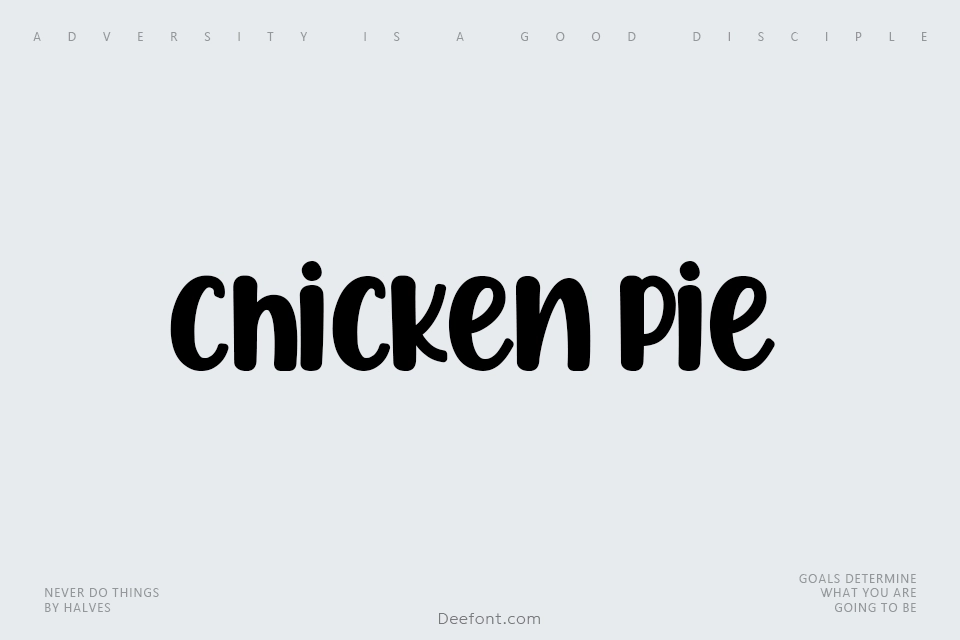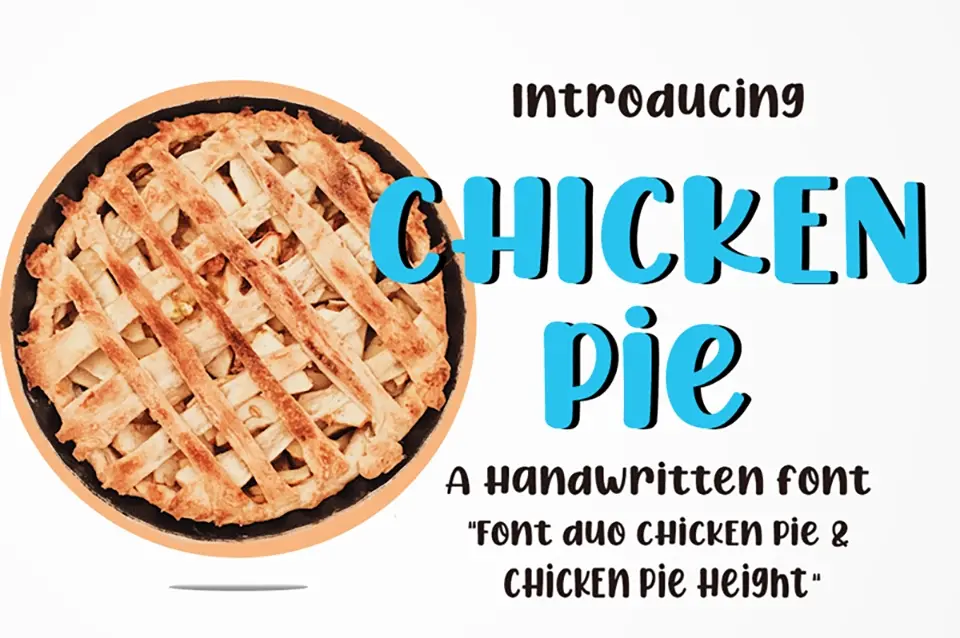
Chicken Pie Font
Chicken Pie Font is a bold sans-serif typeface created by Manjali Studio, featuring rounded, thick strokes and a playful personality. This carefully handcrafted font combines casual charm with excellent readability, making it wonderfully down-to-earth and incredibly versatile. With its whimsical flair and smooth flow, the font is perfect for headlines, logos, posters, branding projects, food packaging, and social media graphics. Its distinct personality brings a fun and engaging look to any design while maintaining professional quality.